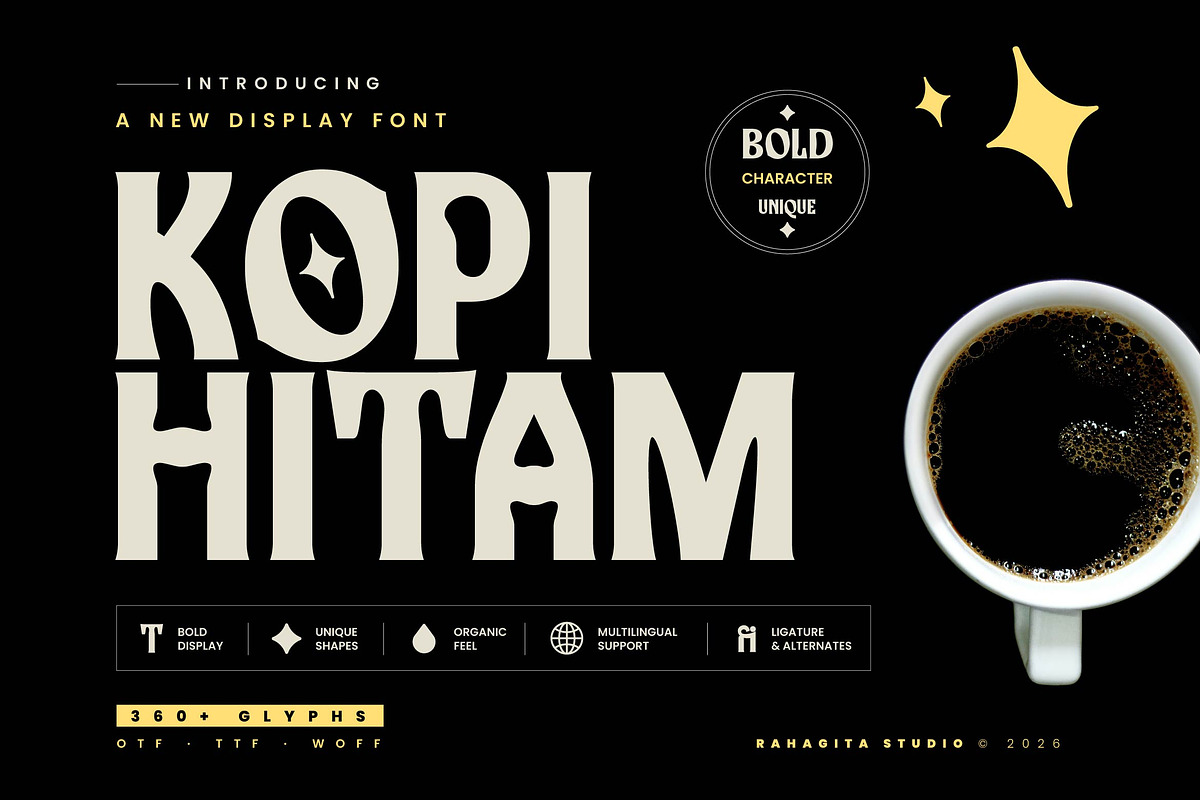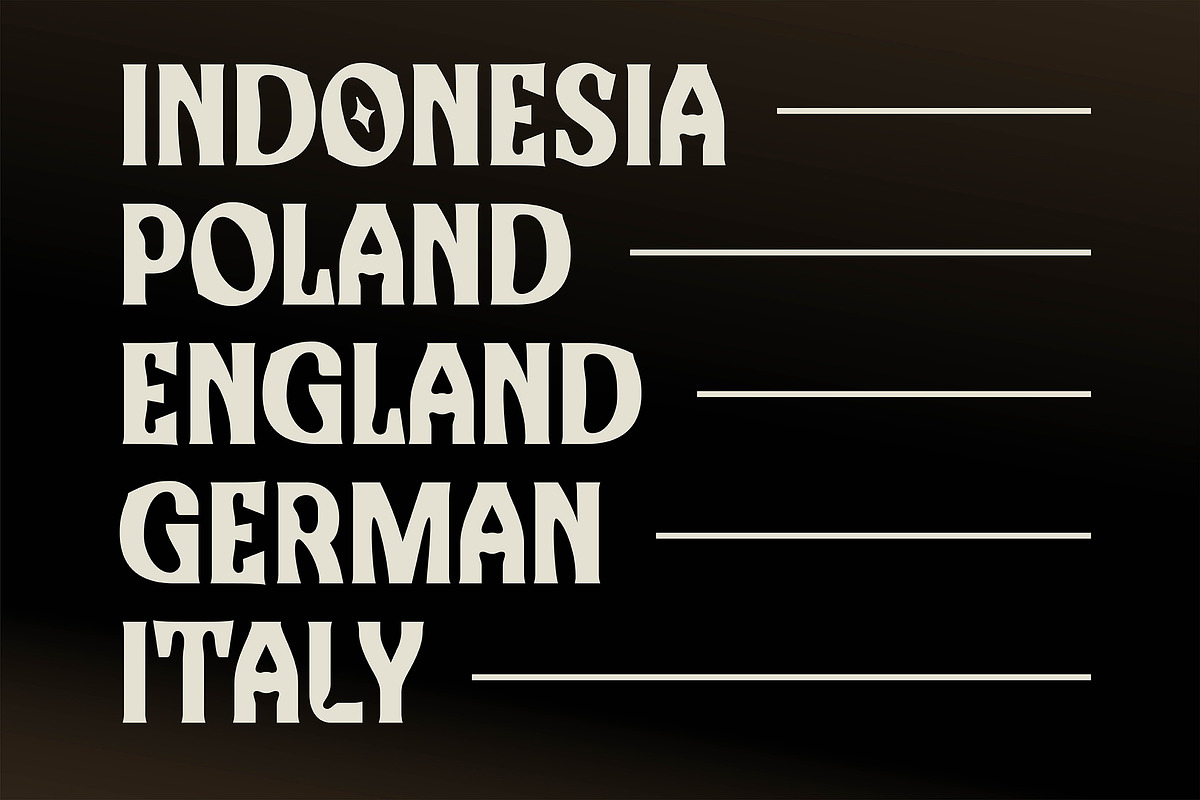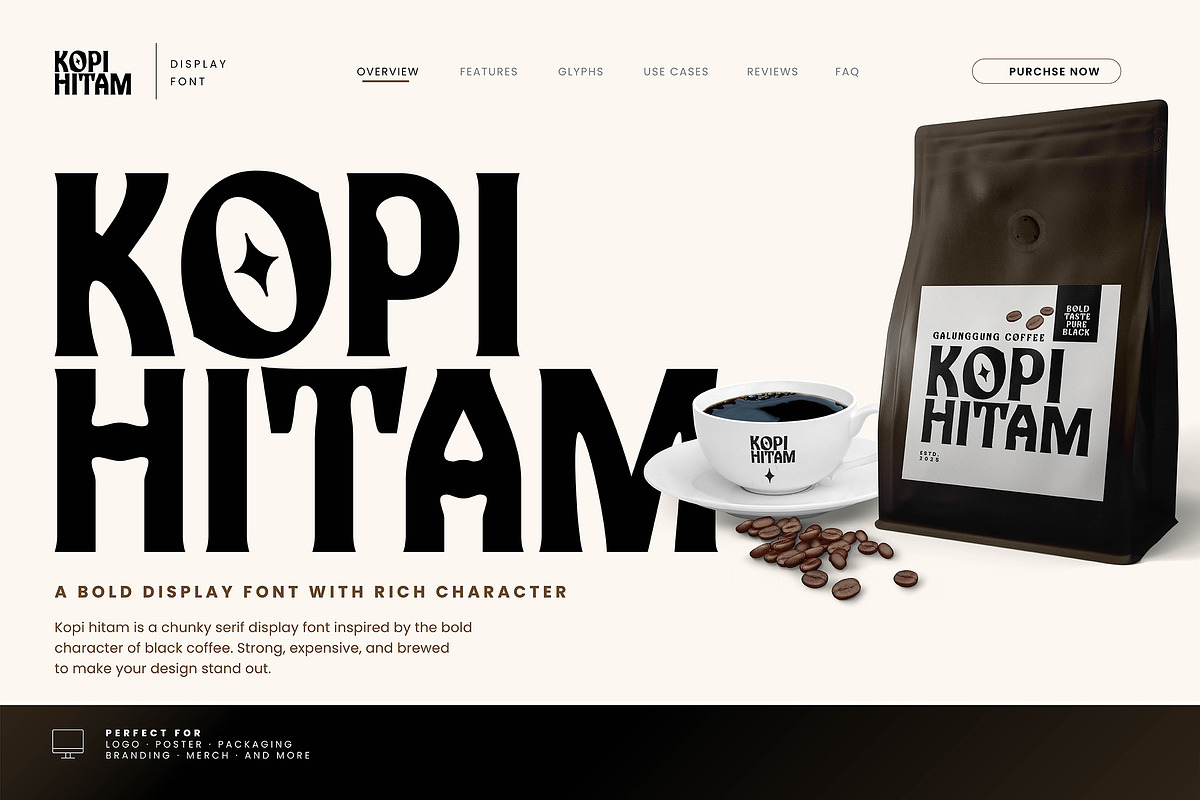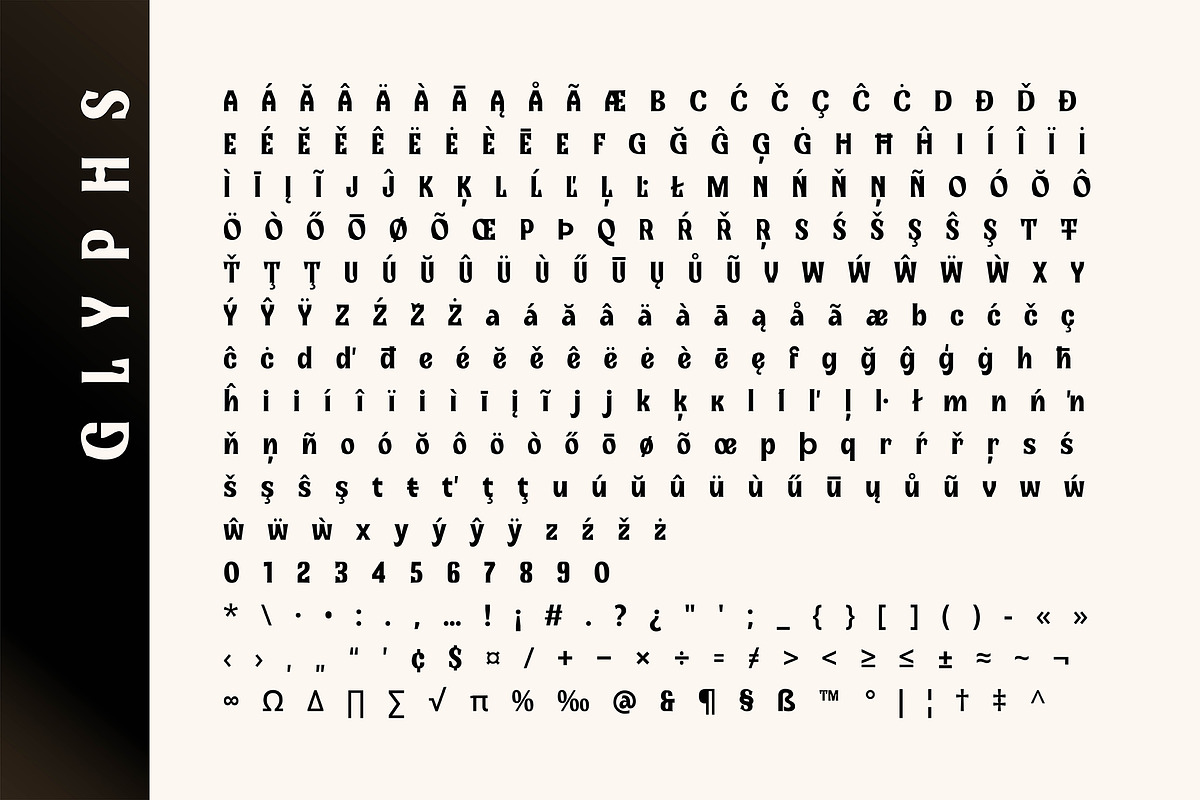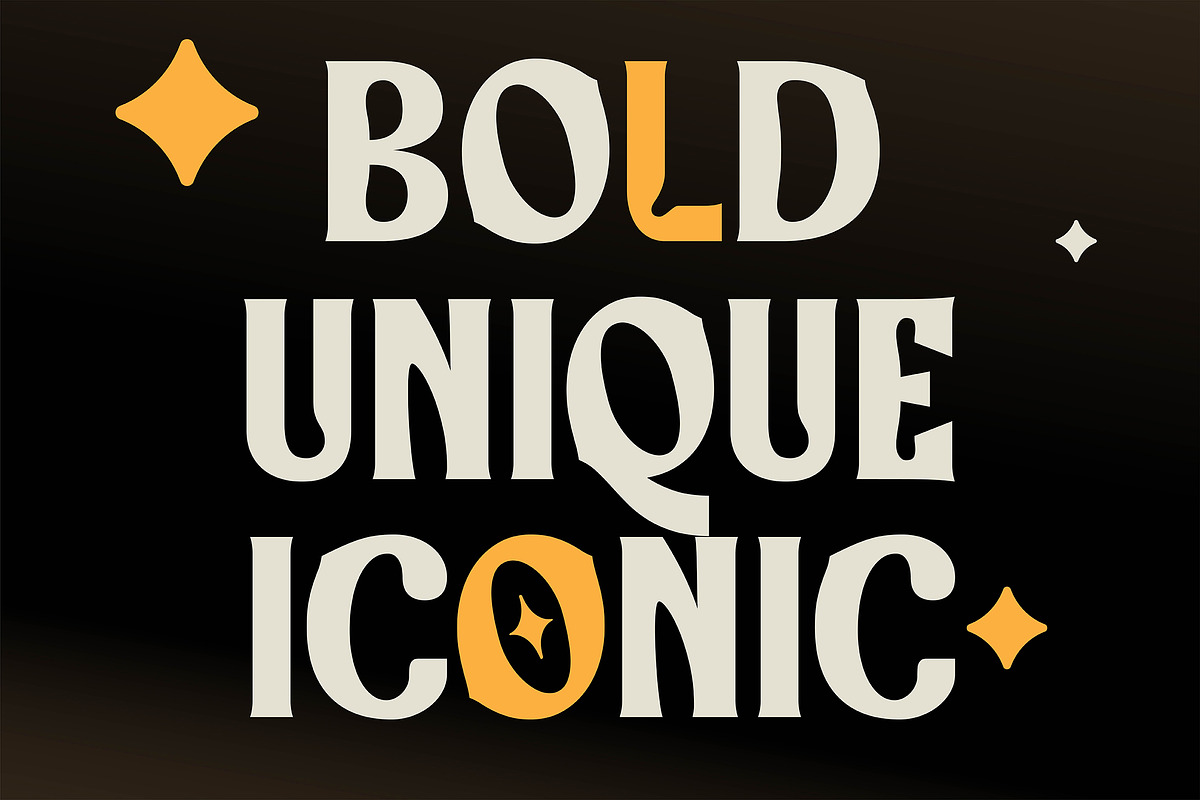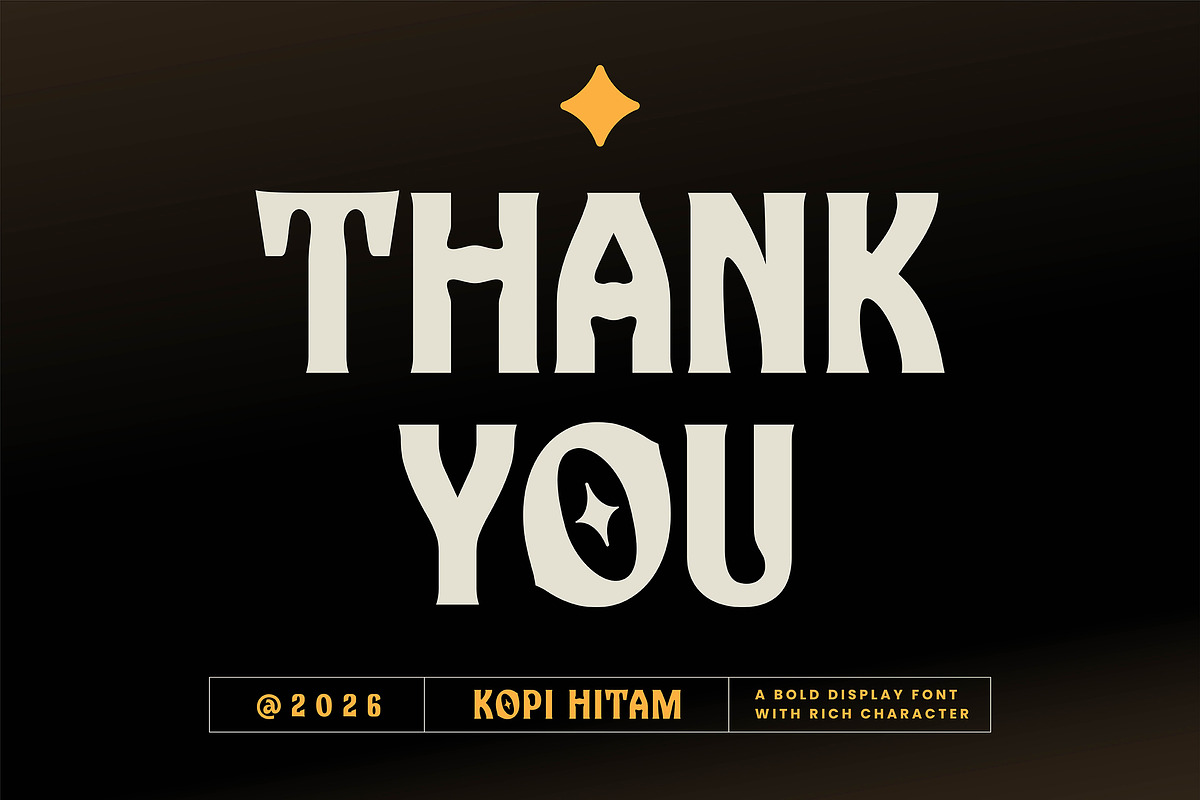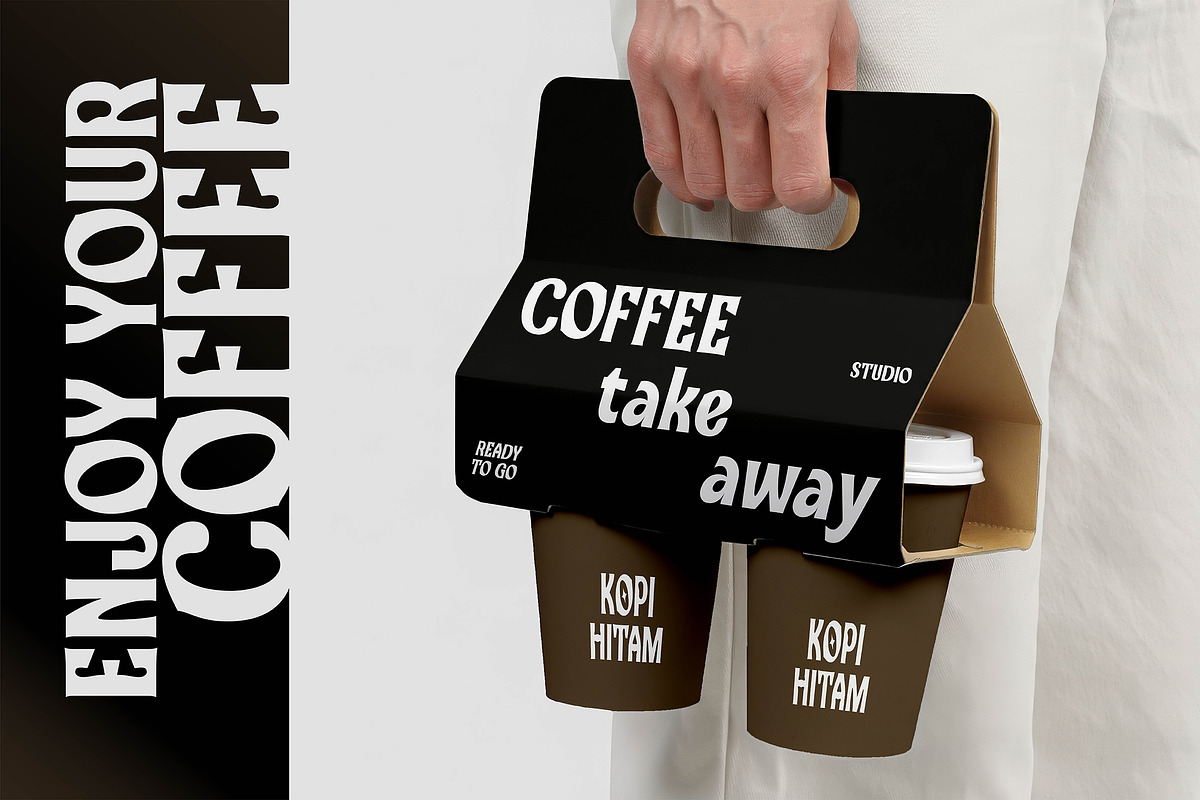
Kopi Hitam - Retro Bold Font
Kopi Hitam is a powerful display typeface born from the soul of bold, unapologetic design. Inspired by the deep and intense character of black coffee, this chunky serif font delivers strong visual weight with a distinctive organic feel that sets it apart from ordinary display fonts.
Whether you’re designing a coffee brand identity, a streetwear label, a bold poster, or premium product packaging — Kopi Hitam brings an iconic, editorial look that instantly commands attention.
360+ glyphs
Uppercase & lowercase letters
Ligatures & alternates
Multilingual support (Indonesia, English, German, Polish, Italian & more)